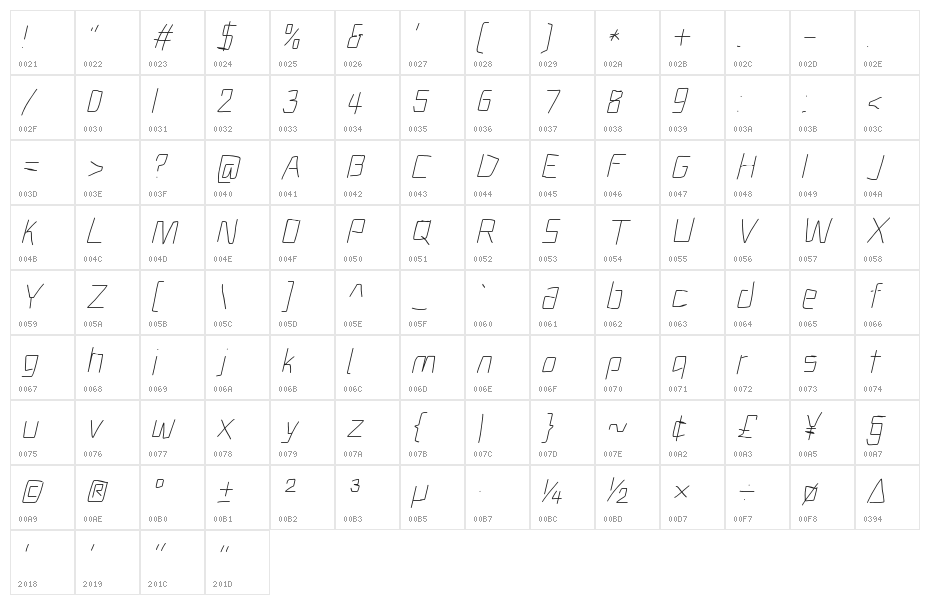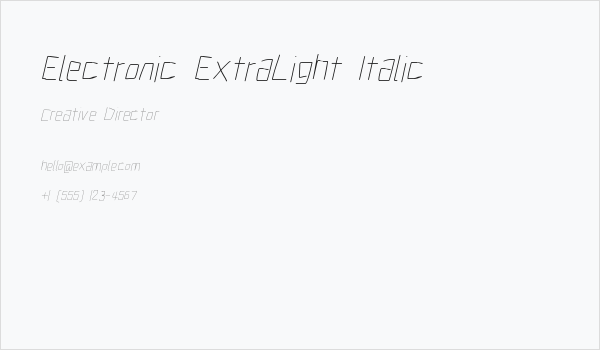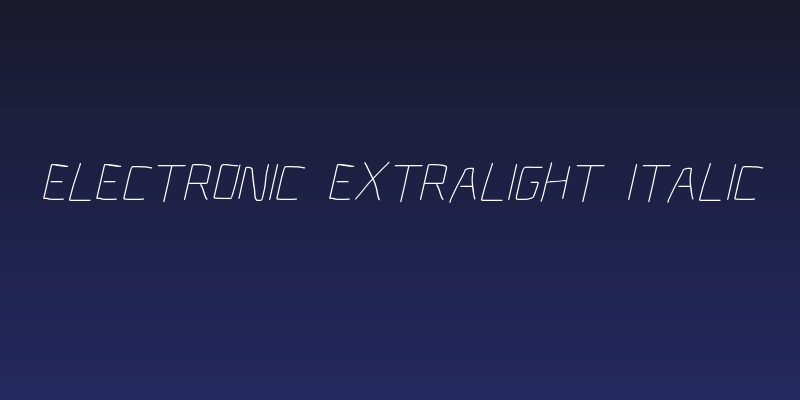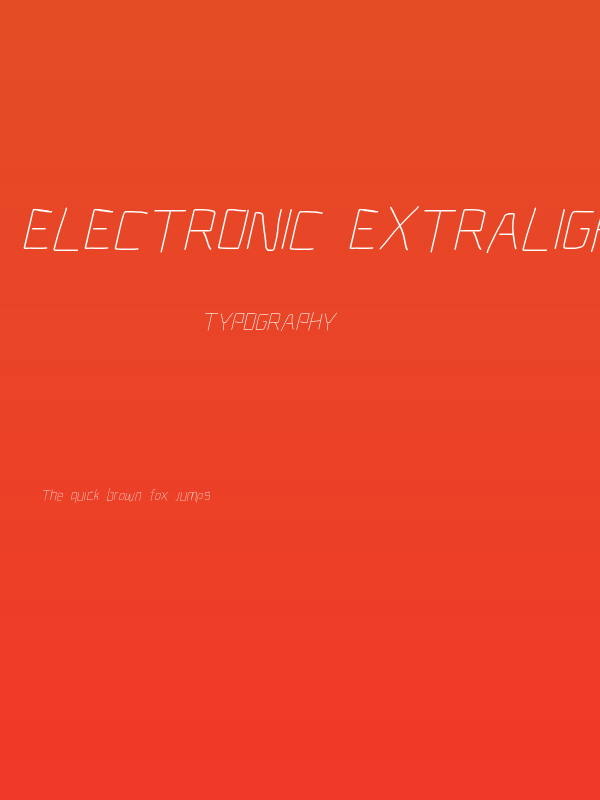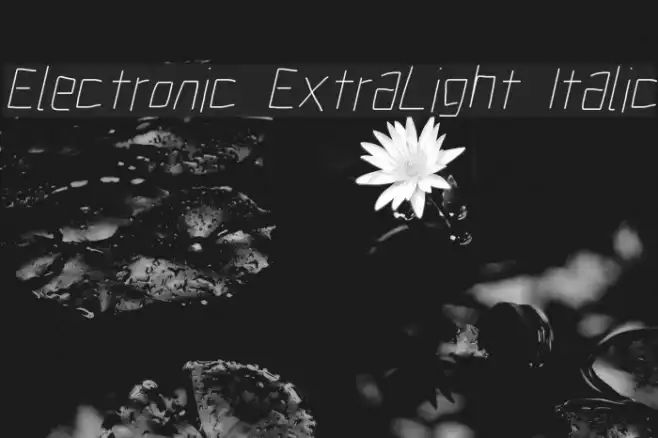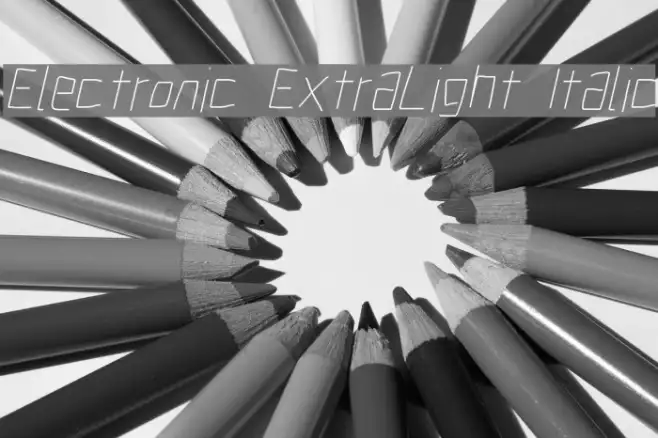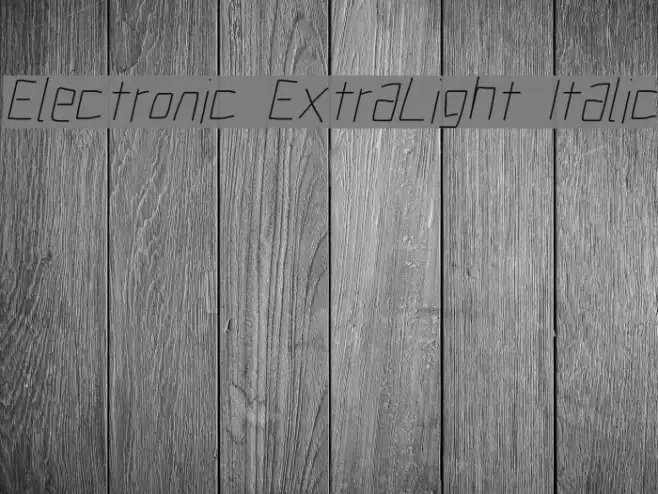
Electronic ExtraLight Italic Font
Electronic ExtraLight Italic Description
This font features a sleek, modern design with a distinctly electronic feel. The characters are elongated and slightly slanted, giving an italicized appearance that adds a sense of motion and dynamism. The strokes are thin and consistent, contributing to an extra-light weight that enhances its futuristic aesthetic. The geometric structure of each letter is evident, with sharp angles and clean lines that create a technical, digital impression. This font is particularly suitable for projects that require a contemporary and innovative look, such as tech branding, digital interfaces, or sci-fi themed designs.
| Proposed Projects | Ideal for tech branding, digital interfaces, sci-fi themes, and innovative design projects. |